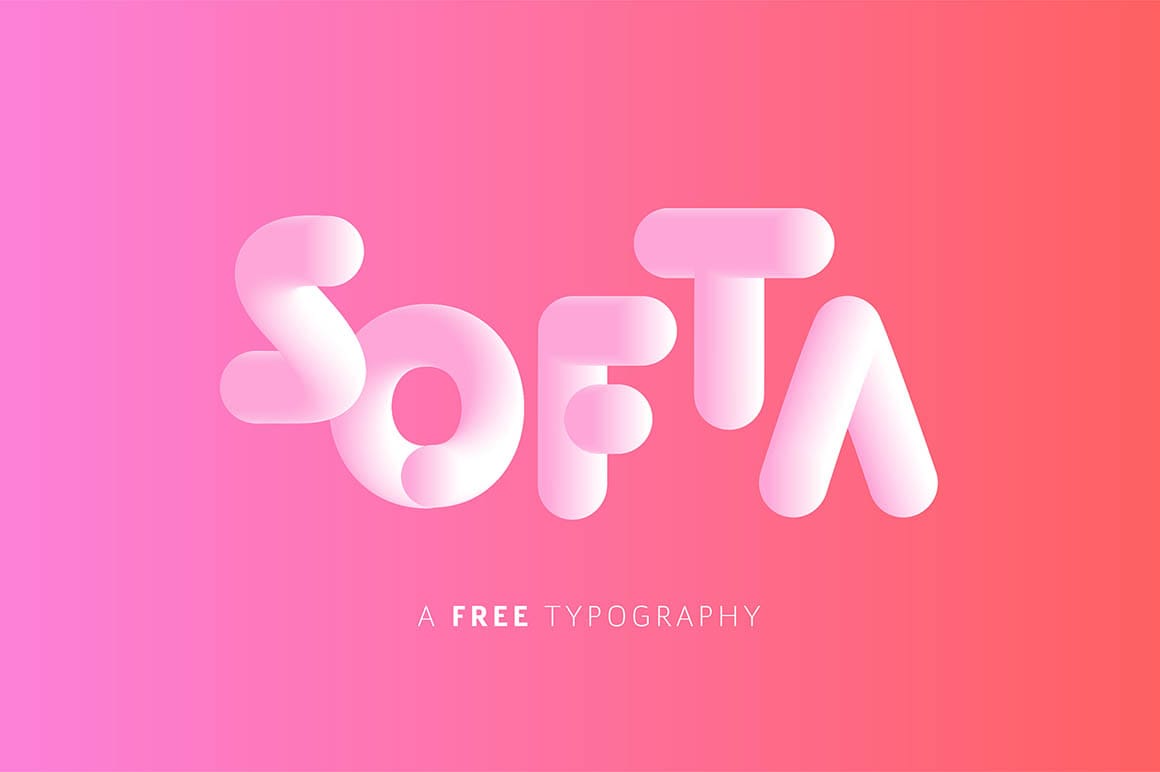
Softa is a free font that presents a unique, puffy typography style, developed by Justin Vin from a branding and motion design studio. Inspired by experimentation with Illustrator's blend tool and gradients, this font showcases a playful and inflated design.
Ideal for short phrases, titles, and headings, Softa stands out with its big and bold appearance. Its playful nature makes it an excellent choice for projects that require a touch of fun and whimsy.